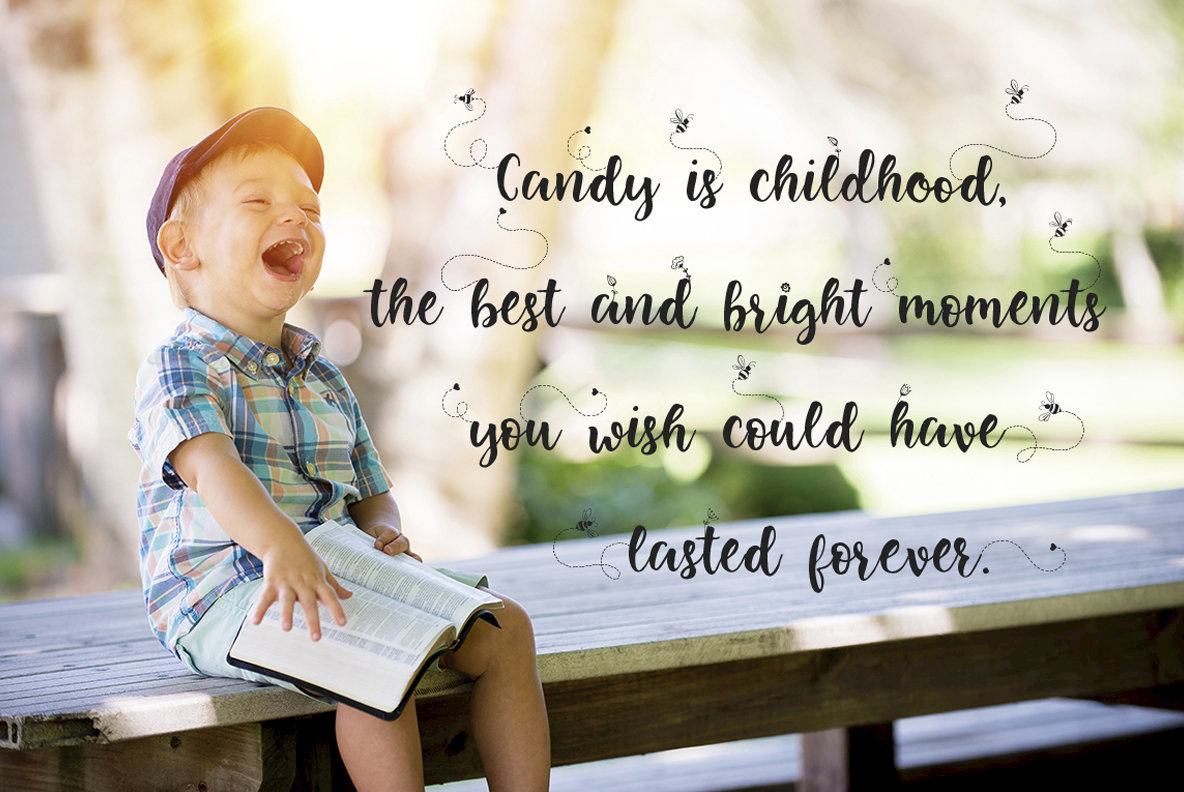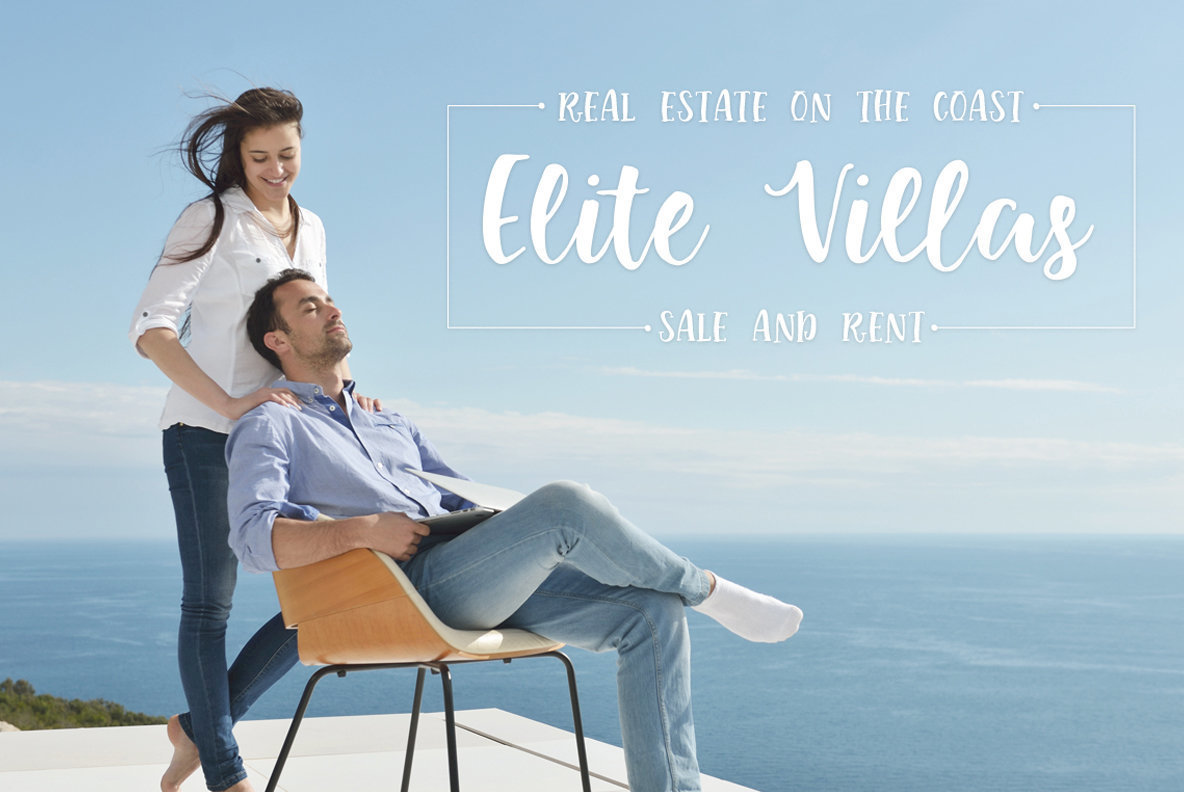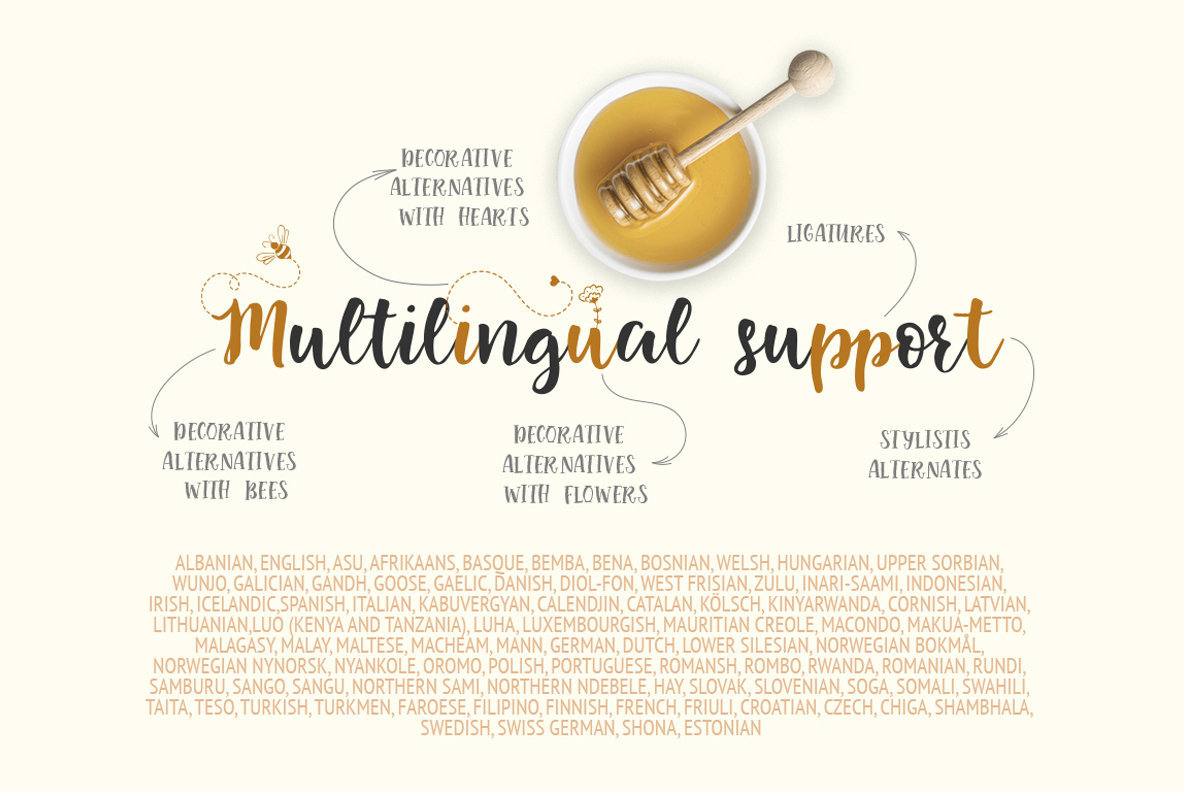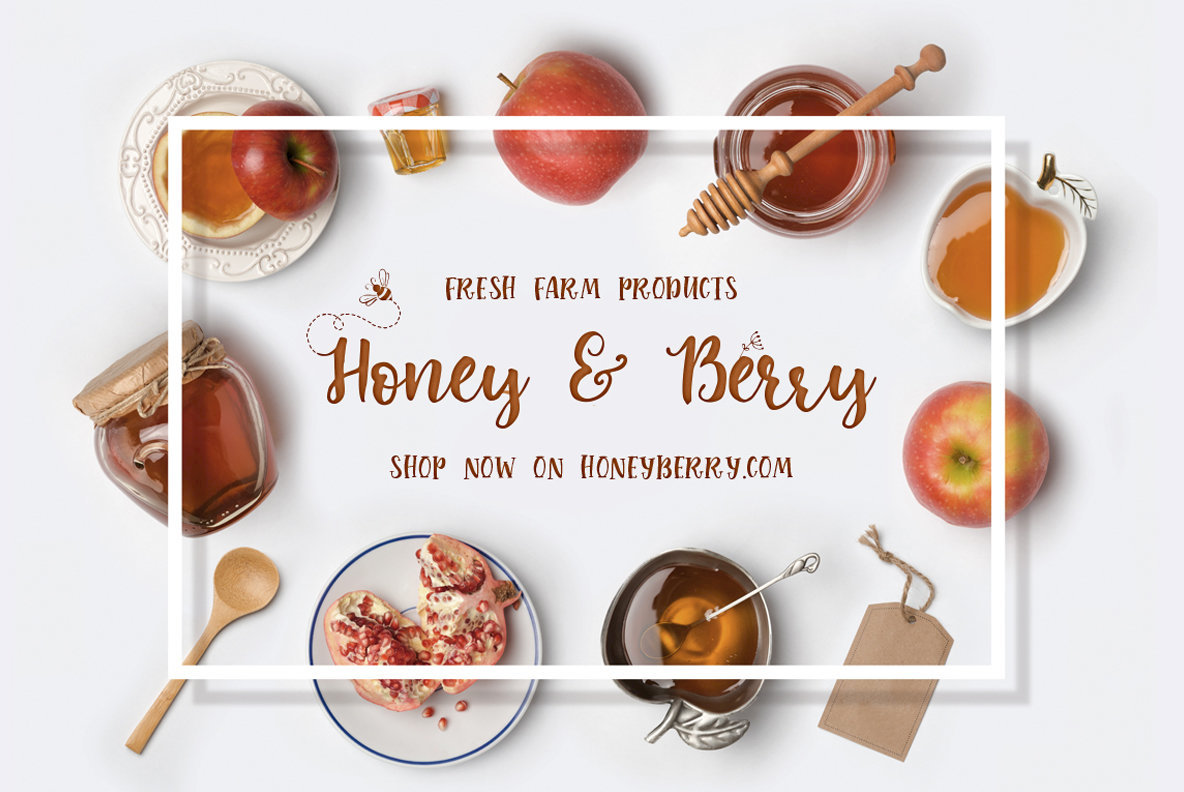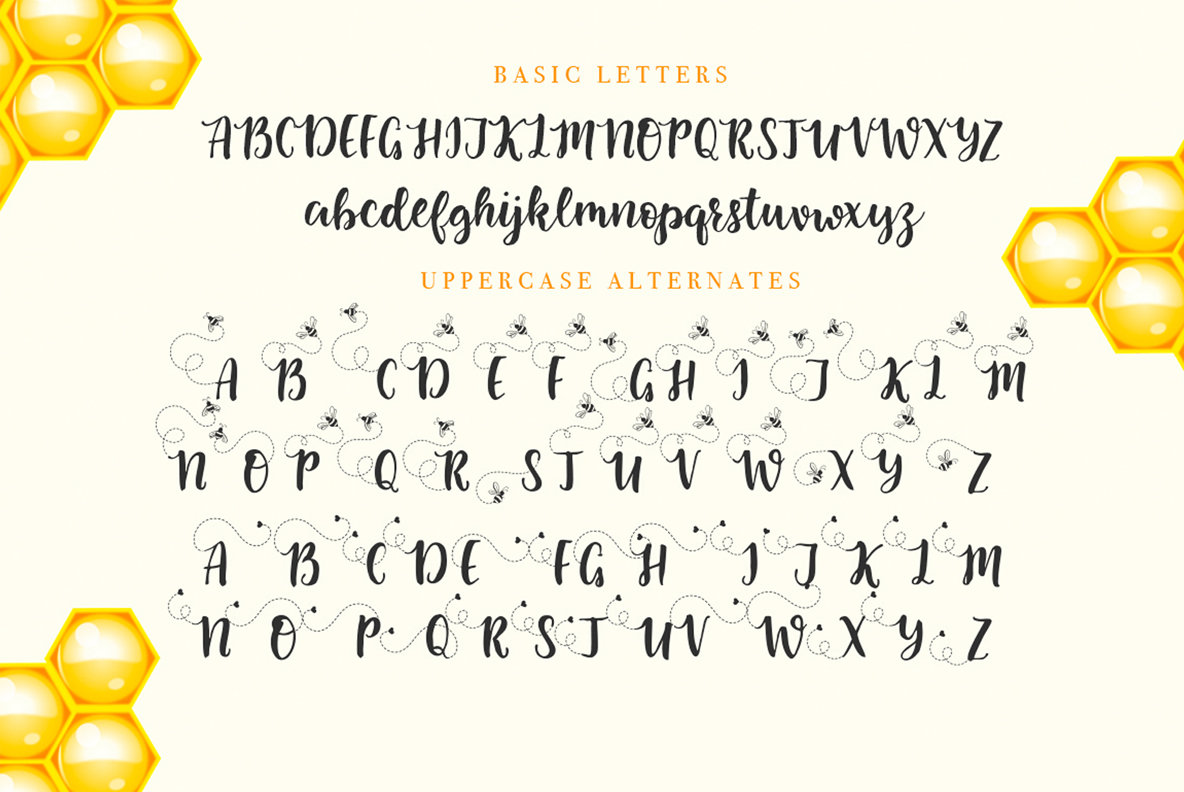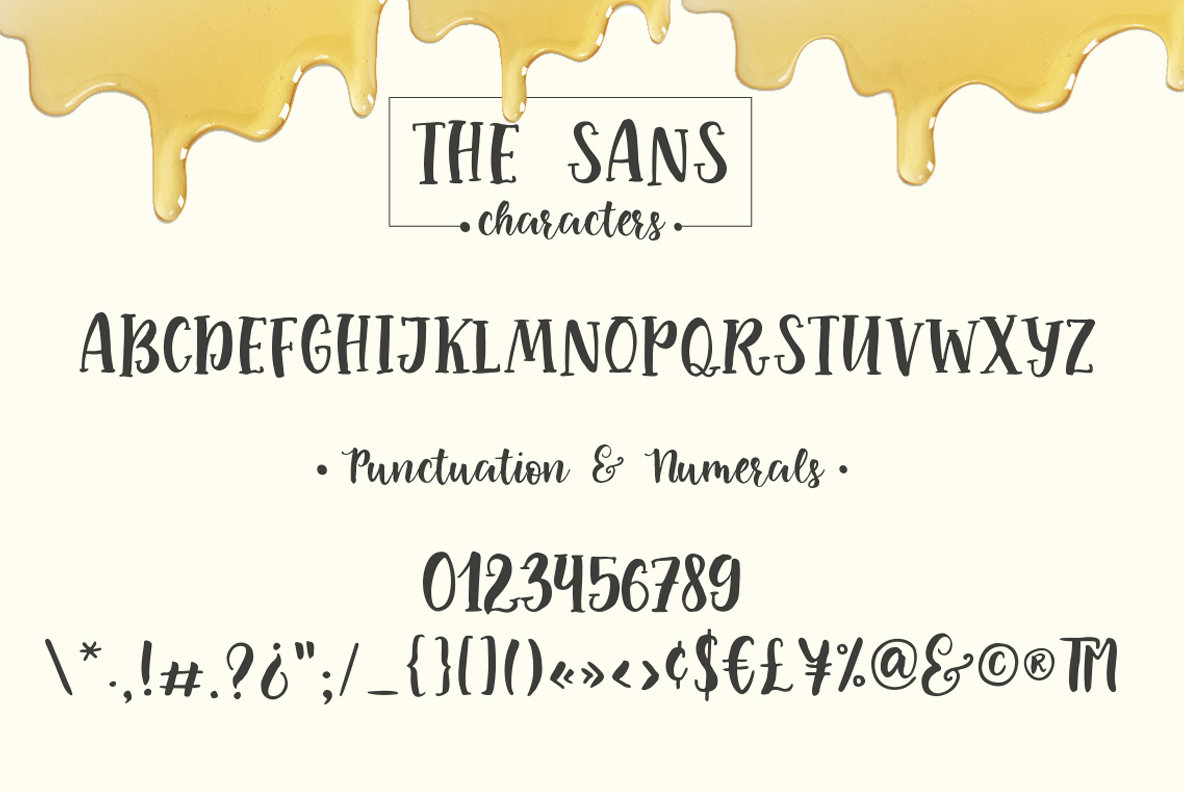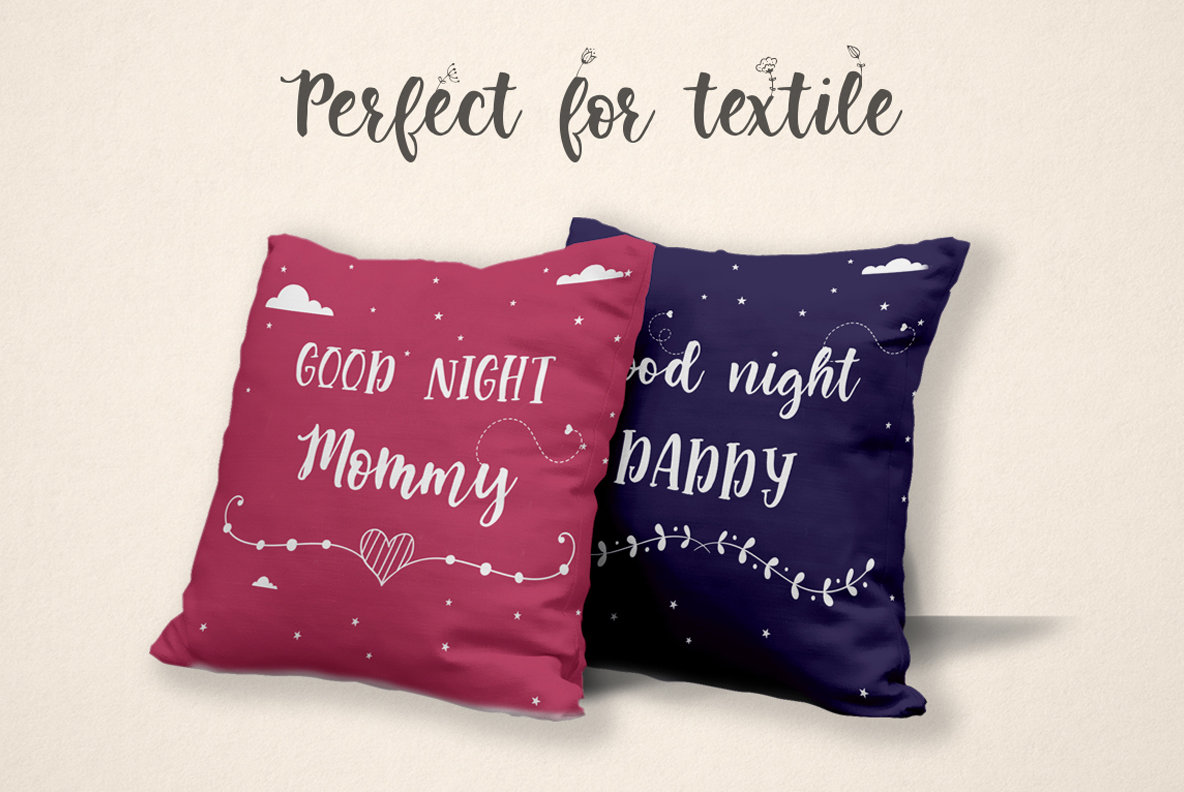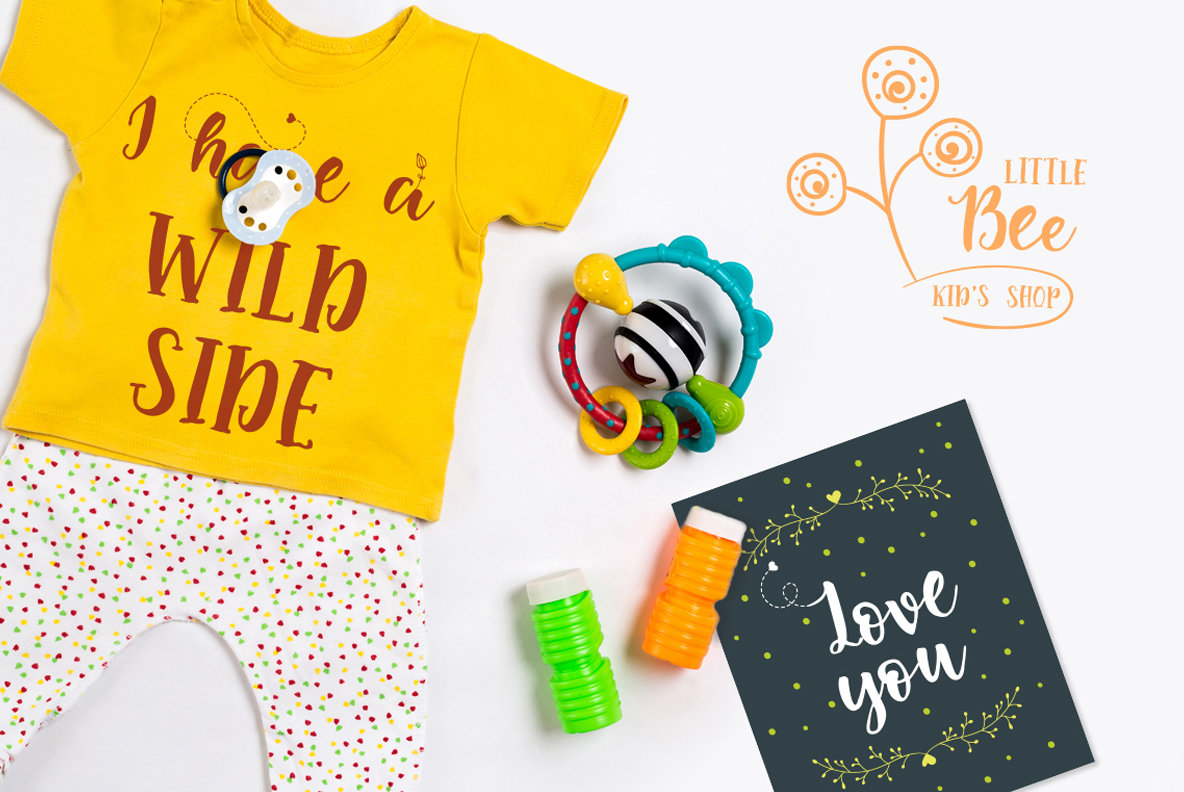
Little Bee Font
Little Bee is a beautiful script font with an unique bouncy character. 3 variants of letters for the uppercase and 7 variants of letters for the lowercase, make this font an unique tool for creating handdrawn texts, which are written with a brush and ink. You can see contextual alternates and playful decorative alternates with hearts, flying little bees and flowers. With this font your messages will become really super cute. This font is perfect for posters, greeting cards, t-shits, branding materials, quotes and any other amazing projects you are working on.
Little Bee is a font, in which OTF features are very convenient. So, it’s very easy to get alternative glyphs:
just type the number after any letter ( 1…2 for uppercase, 1…6 for lowercase). So, you can forget about the Glyphs panel and have fun and great results just type numbers after letters.
You can still use the Glyphs panel. You’ll see there 208 contextual and stylistic alternate glyphs and 17 double letters ligatures.